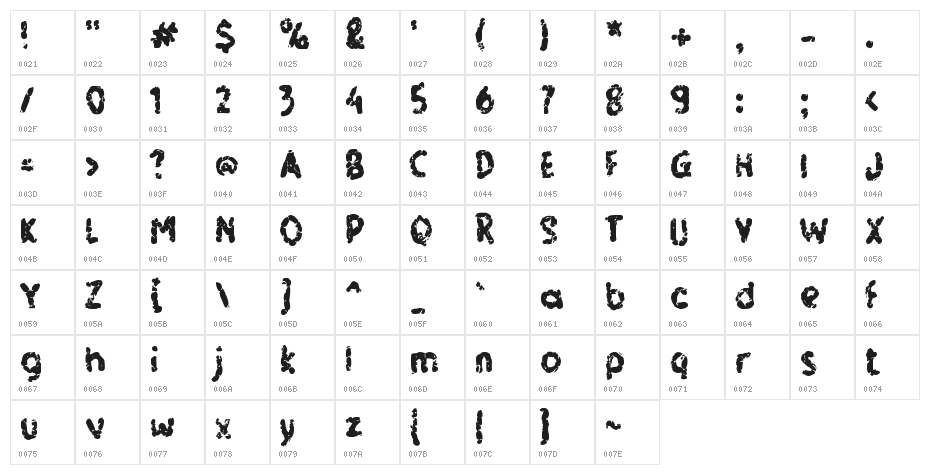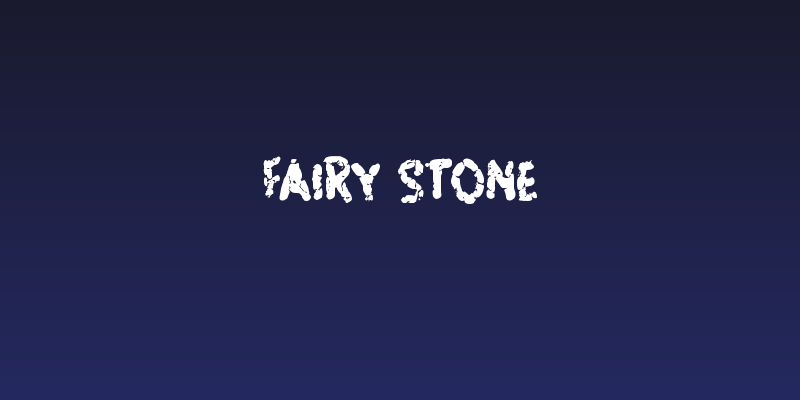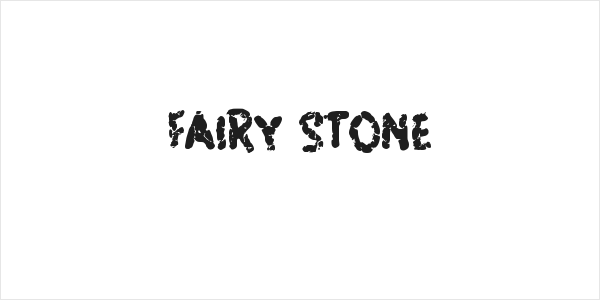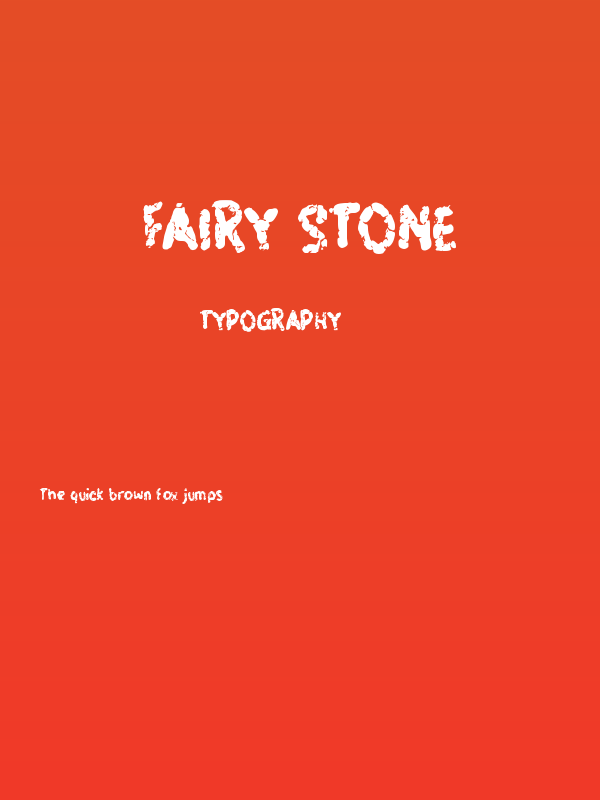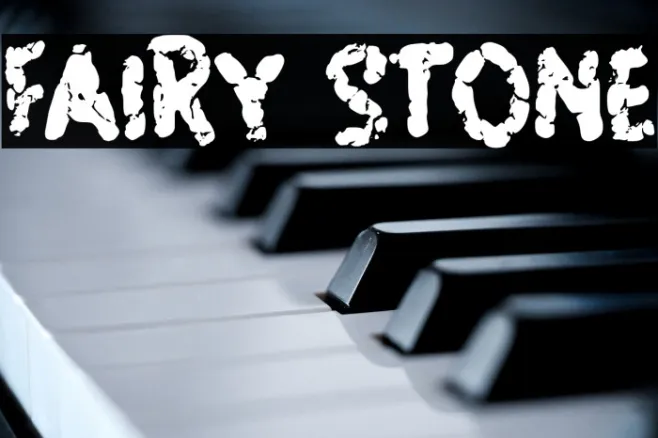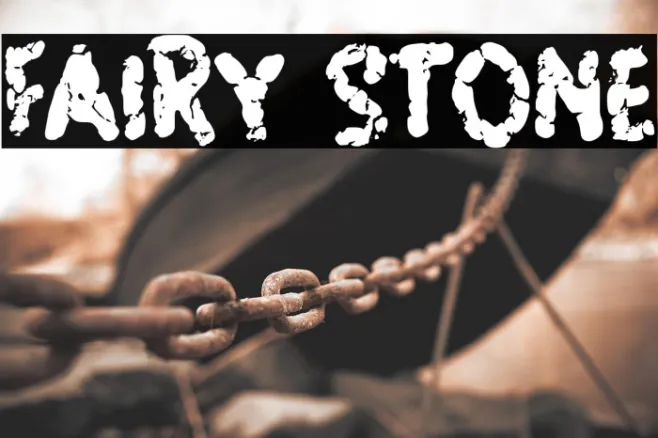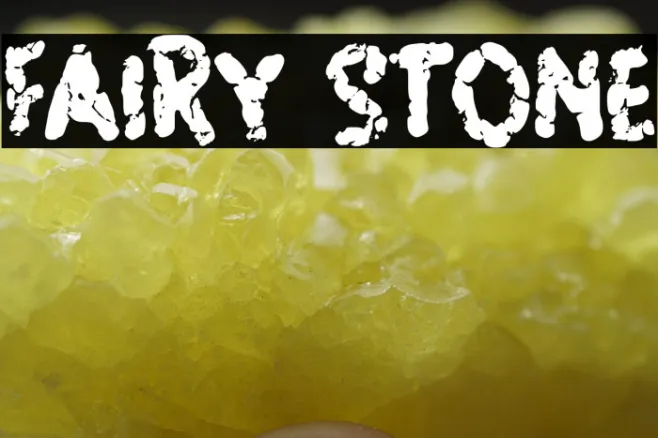
FAIRY STONE Font
FAIRY STONE Description
This font features a rugged and textured appearance, reminiscent of weathered stone or rough surfaces. Each character is uniquely distressed, giving it a natural and organic feel. The irregular edges and varying thicknesses create a dynamic and eye-catching effect, making it ideal for projects that require a bold and adventurous look. The uppercase and lowercase letters maintain a consistent style, while the numerals and special characters complement the overall aesthetic. This font's distinctive style is perfect for creative and artistic applications.
| Proposed Projects | Ideal for adventure-themed posters, outdoor event flyers, artistic branding, and creative packaging designs. |